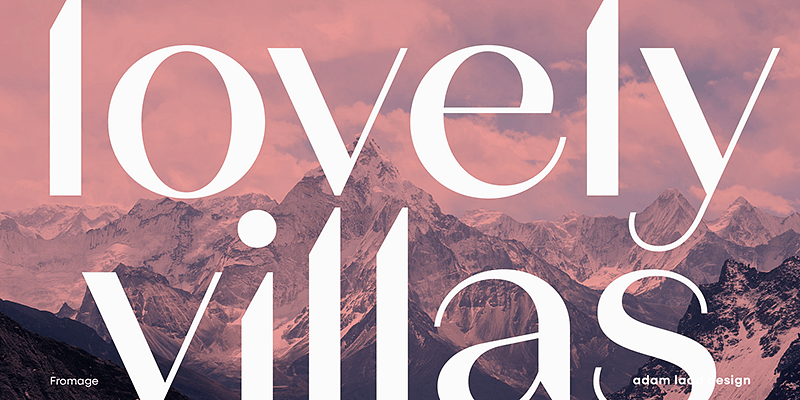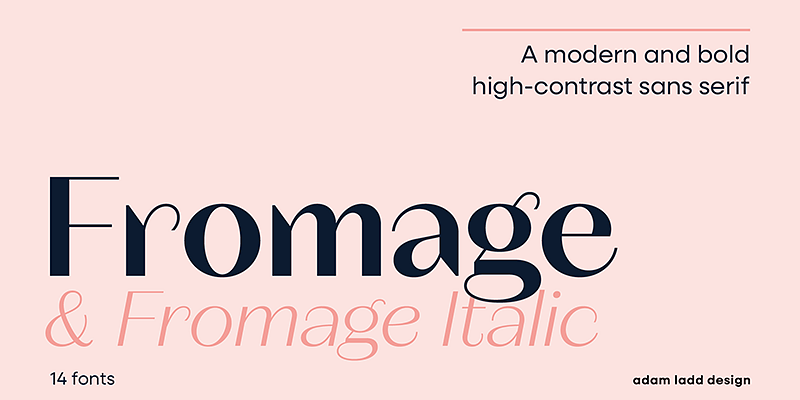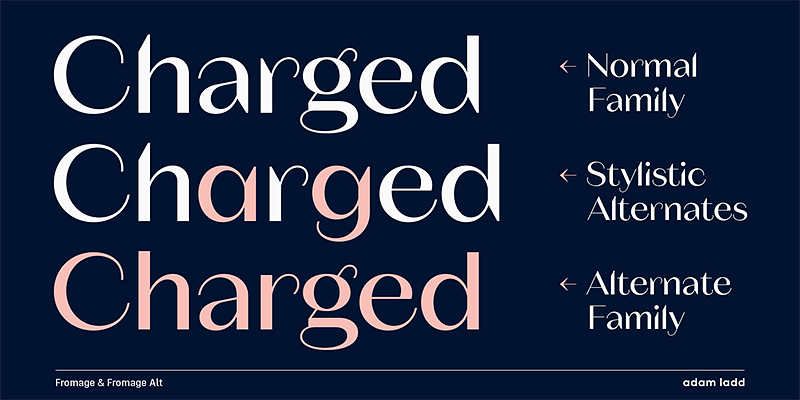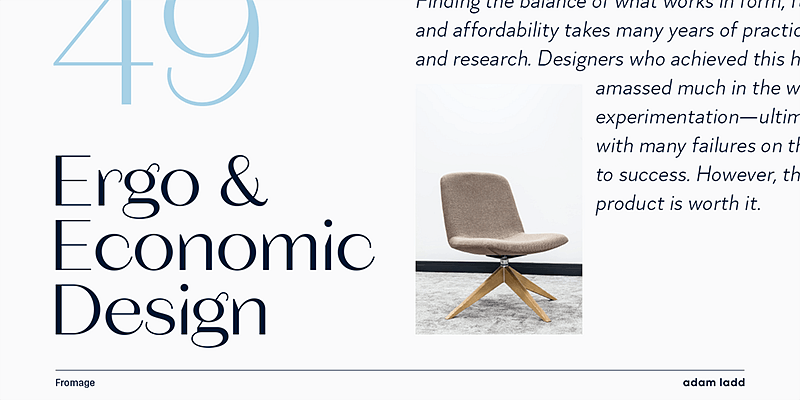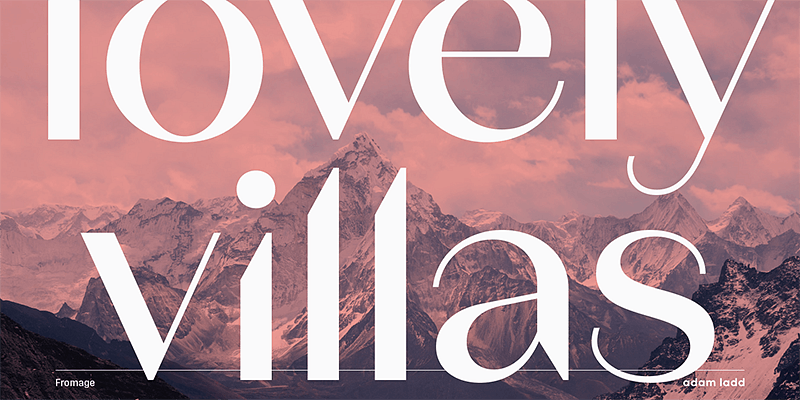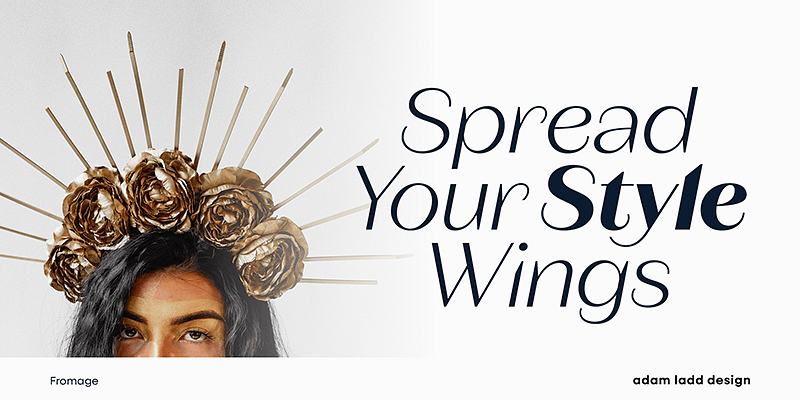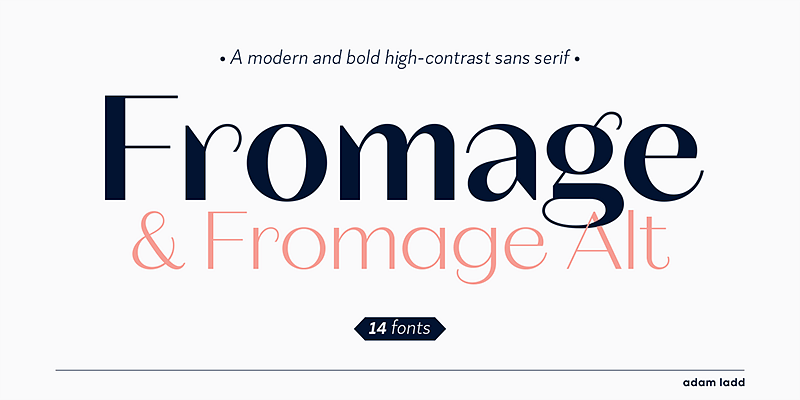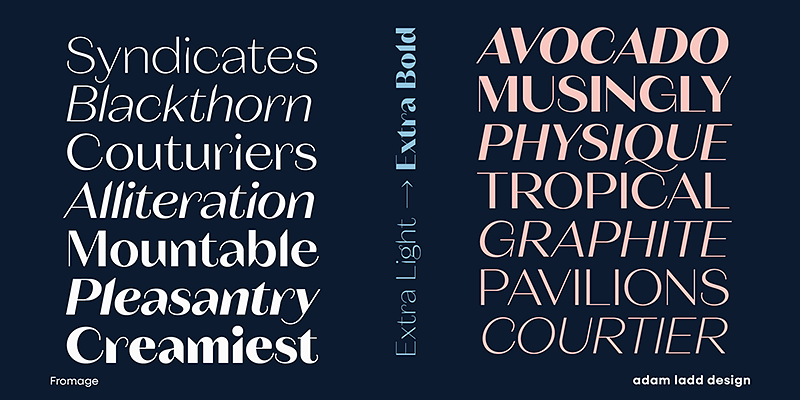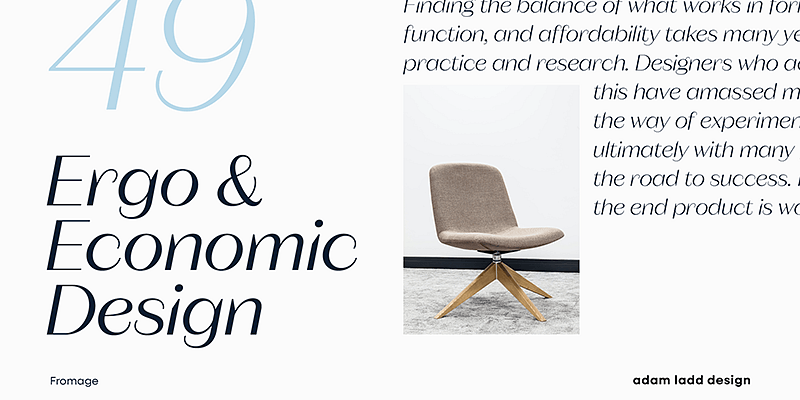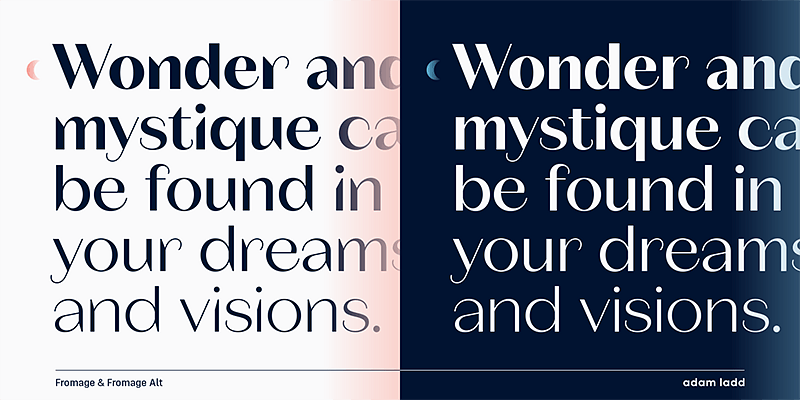
“Fromage—now with italics—is a modern, high-contrast sans serif font families balancing the unexpected with restraint. With a generous x-height and round forms, Fromage has angled and elongated terminals making it more stately and dramatic. The font family offers flexibility and legibility for diverse applications, and an elegant air with a dynamic rhythm makes Fromage an obvious choice for fashion, beauty, and luxury branding.
With an emphasis on typefaces designed to be useful and unique, Adam Ladd crafts fonts with a diverse appeal that ranges across modern and vintage aesthetics in sans serif, serif, and script styles. His experience as art director at two of the most revered design publications — HOW and PRINT magazines — informs his work as a type designer. Individuals and large companies in many industries have licensed his fonts, including Disney, Whole Foods, Blizzard Entertainment, and Penguin Random House.